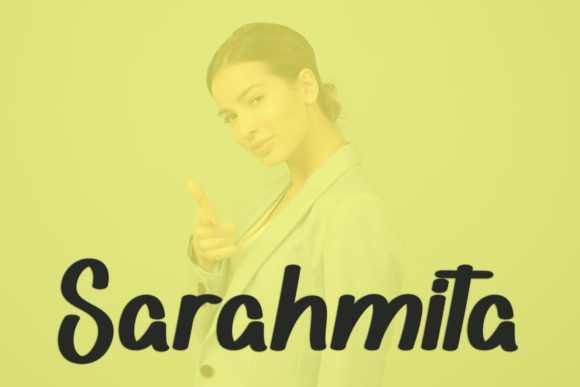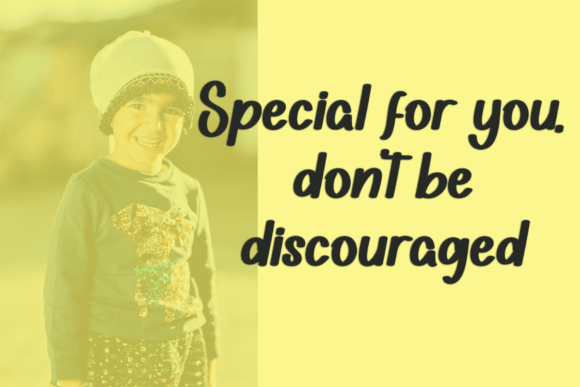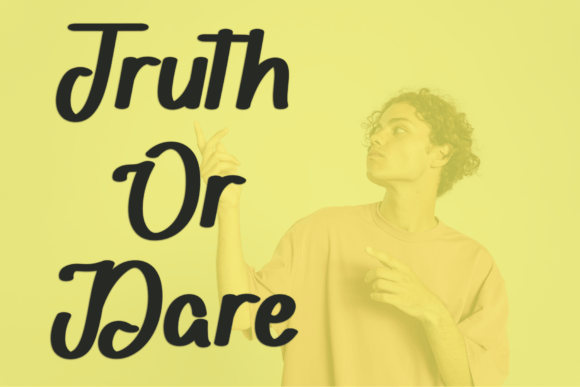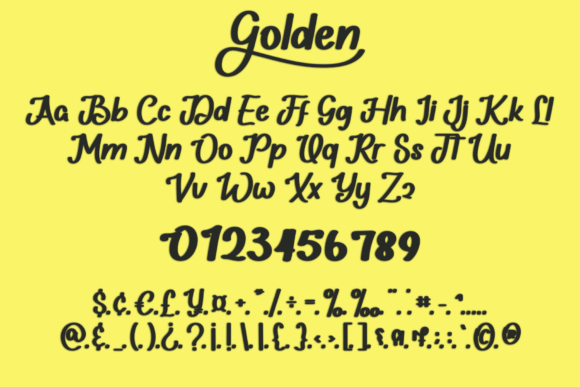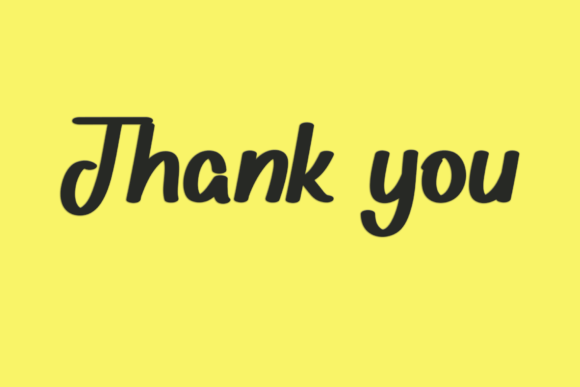
The Magical Touch of Golden Font: Elevating Your Designs with Elegance
I’ll never forget the moment I stumbled upon the perfect font for a client’s wedding invitation project. I had been searching for hours, trying out different fonts, but none seemed to capture the essence of elegance and sophistication that I was looking for. That was until I discovered Golden Font. ✨ It was like a breath of fresh air, a magical handwritten font that added a touch of luxury to my design. In this article, I’ll share my experience with Golden Font, its features, and how to make the most of it in your designs.
A Personal Review: What I Love About Golden Font
Golden Font has quickly become one of my go-to fonts for various design projects. Here’s what I love about it:
- ✨ Elegant and sophisticated: Golden Font exudes luxury and refinement, making it perfect for high-end designs.
- ✅ Versatile: This font can be used for a wide range of projects, from Instagram posts to calligraphy scripts for DIY projects.
- 💫 Unique character: Golden Font has a distinct personality that sets it apart from other fonts.
- 🎨 Highly customizable: With OpenType features and glyphs, you can experiment with different styles and variations.
While Golden Font is an excellent choice for many designs, there are a few quirks to be aware of:
- 🤔 Limited use for body text: Golden Font is best suited for headings and titles, as it can be challenging to read in large blocks of text.
- ⚠️ Not ideal for small sizes: Golden Font’s intricate details can get lost when scaled down to very small sizes.
The Story Behind Golden Font
Golden Font was created by a team of designers who wanted to craft a font that would add a touch of elegance to any design project. Inspired by traditional calligraphy and handwritten scripts, Golden Font was carefully crafted to be both beautiful and versatile. The design team poured their hearts into creating a font that would be perfect for designers, crafters, and creative hobbyists alike.
| What is Golden Font best used for? | Golden Font is best used for designs that require a touch of elegance and sophistication, such as wedding invitations, luxury branding, and high-end advertising. |
| Is Golden Font suitable for body text? | No, Golden Font is best suited for headings and titles, as it can be challenging to read in large blocks of text. |
| Can I customize Golden Font? | Yes, Golden Font has OpenType features and glyphs that allow you to customize the font to your liking. |